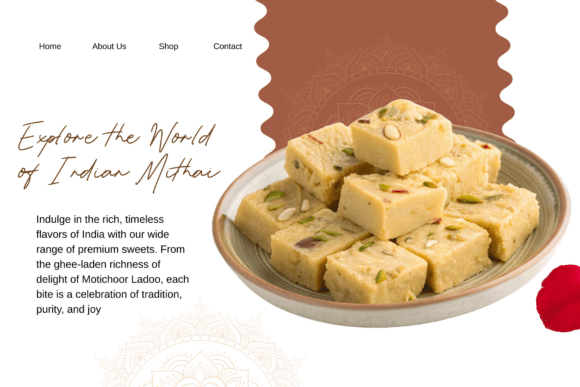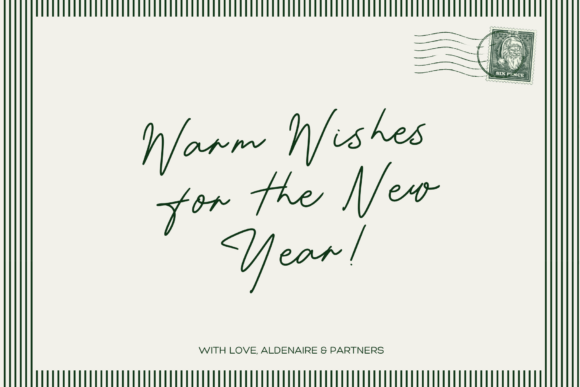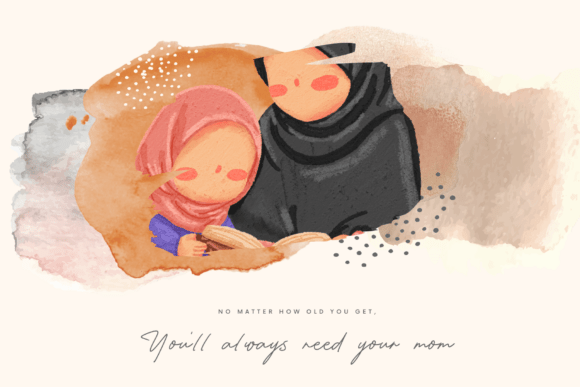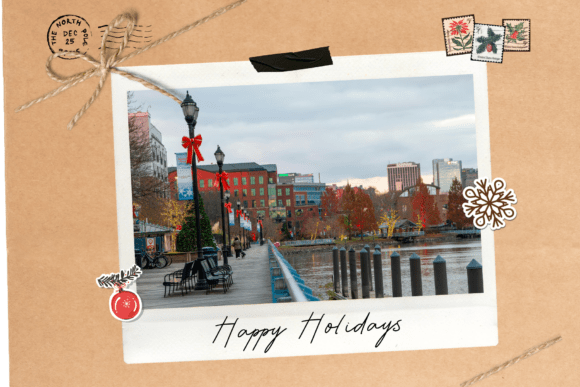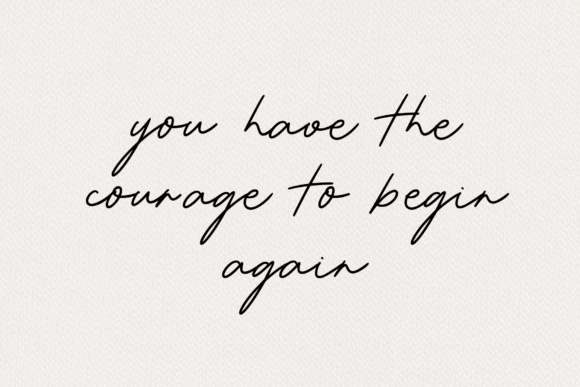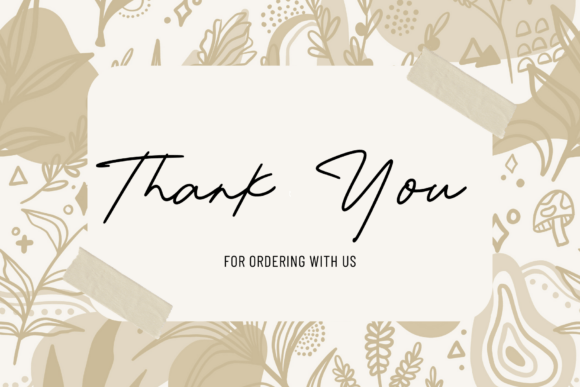
Introduction to Plainst Font
Have you ever stared at a blank page, waiting for inspiration to strike, only to have your creative juices flow when you grab a pen and start writing by hand? That’s the magic of handwritten fonts, and the Plainst Font is here to capture that essence perfectly.
As a designer, you’re always on the lookout for that special something to elevate your creative project from ordinary to extraordinary. With the Plainst Font, you can achieve just that. This high-quality, modern font is designed to be simple, yet striking, making it an excellent addition to any design resource.
Whether you’re working on a project with a transparent background or need a font that’s free to download, the Plainst Font is the perfect solution. Its clean and minimal design ensures that your text stands out without overwhelming the senses, making it an invaluable asset for any designer looking to add a touch of elegance to their work.
Key Features of Plainst Font
- High-quality, professional design suitable for a wide range of creative projects.
- Transparent background allows for seamless integration with various design resources.
- Includes a wide range of characters, including Latin, Cyrillic, and Greek alphabets, as well as punctuation and symbols.
- Features a clean, minimalist design with a large x-height, making it highly legible at various font sizes.
- Perfect for use in graphic design, digital art, and typography-based creative projects.
Honest Review: Plainst Font
I recently had the opportunity to work with the Plainst Font, and I must say it’s been a game-changer for my creative projects. As a designer, I’m always on the lookout for high-quality fonts that can elevate my designs and make them stand out.
One of the things I love about the Plainst Font is its versatility. It’s perfect for a wide range of design projects, from logos and branding to digital products and publications. The font’s clean and modern design makes it easy to read and understand, even at smaller font sizes.
- ✨ Easy to read and understand, even at smaller font sizes
- ✨ Great for a wide range of design projects, from logos to digital products
- ⚠️ Limited character set, which may not be suitable for complex designs
- ⚠️ Not ideal for designs that require a transparent background
Overall, I’m really impressed with the Plainst Font. Its high-quality design and versatility make it a great addition to any designer’s toolkit. If you’re looking for a reliable and easy-to-use font, the Plainst Font is definitely worth checking out.
For the most out of Plainst Font, use it for creating custom logos, text overlays, and graphics for social media, presentations, and marketing materials. You can also use it for designing menus, flyers, and brochures. Experiment with different font sizes, colors, and styles to create visually appealing designs.
Alternatives to Plainst Font
Abril Fatface is a high-quality, elegant script font perfect for creative projects that require a touch of sophistication. Its transparent background and delicate lines make it ideal for wedding invitations, packaging designs, and other design resources that need a refined look. It’s available for free download and can be used in a variety of contexts, from modern logos to classic typography.
Compared to Plainst Font, Abril Fatface offers a more refined and luxurious feel, making it a great choice for high-end design projects. While Plainst Font is a good all-around font, Abril Fatface is better suited for projects that require a touch of elegance and sophistication.